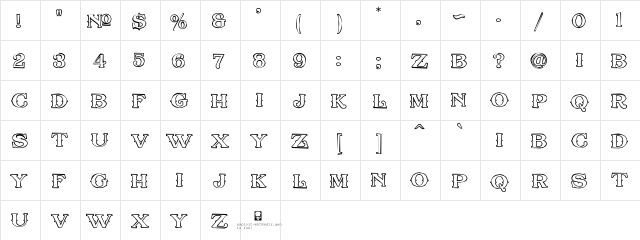
LHF Old Abe OUTLINE Regular
| Foundry | John Studden for Letterhead Fonts |
| Designer | John Studden |
Design Context for LHF Old Abe OUTLINE Typeface
LHF Old Abe OUTLINE is built around its visual character rather than neutral utility — its distinctive forms are designed to make an impression at display sizes.
Font Pairing: Pair with a clean neutral sans-serif for body copy to let LHF Old Abe OUTLINE's character lead without overwhelming the composition.
Pro Tip: Treat LHF Old Abe OUTLINE as the centrepiece of your typographic hierarchy. One strong heading set in a decorative face can carry an entire layout.